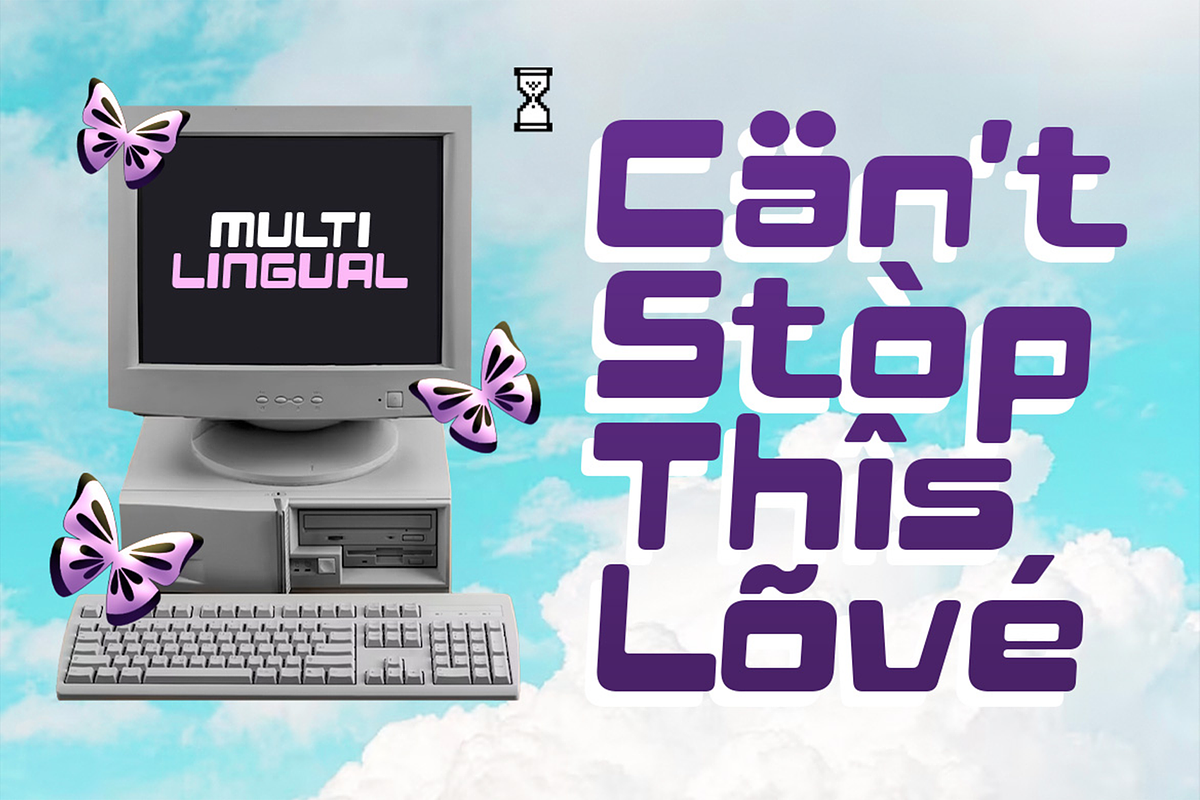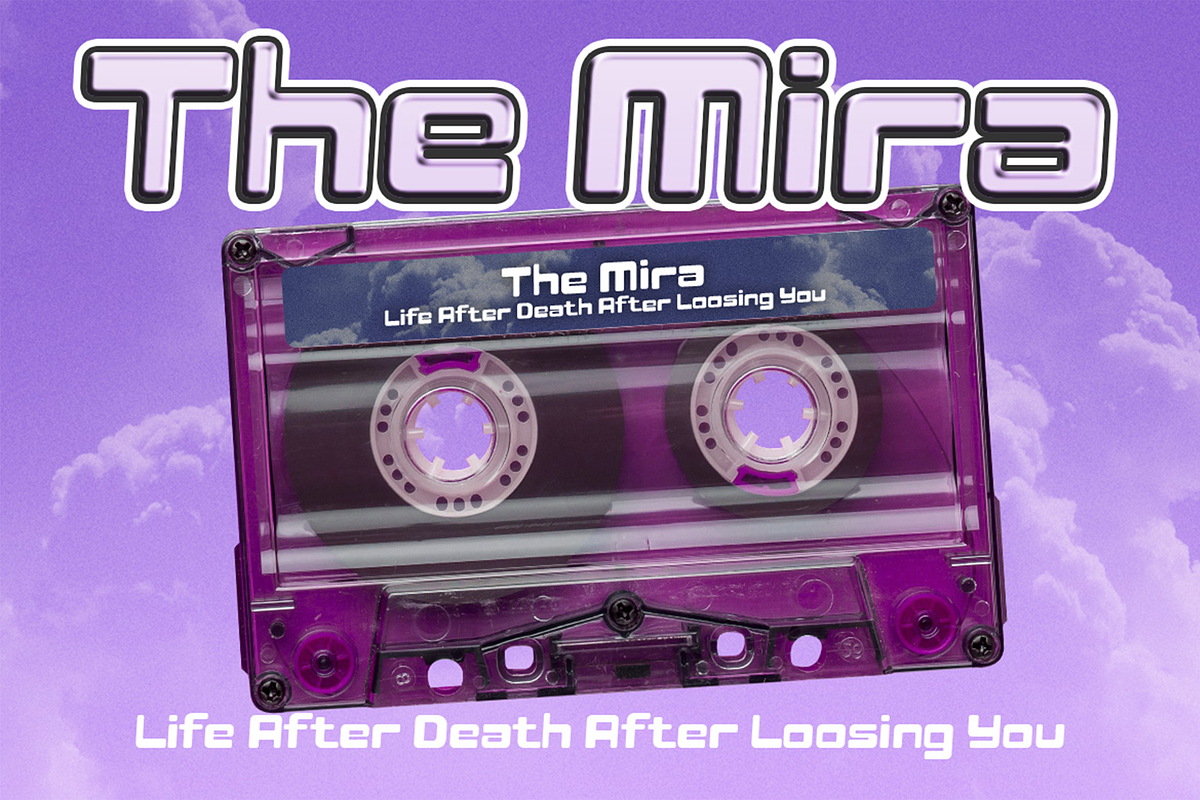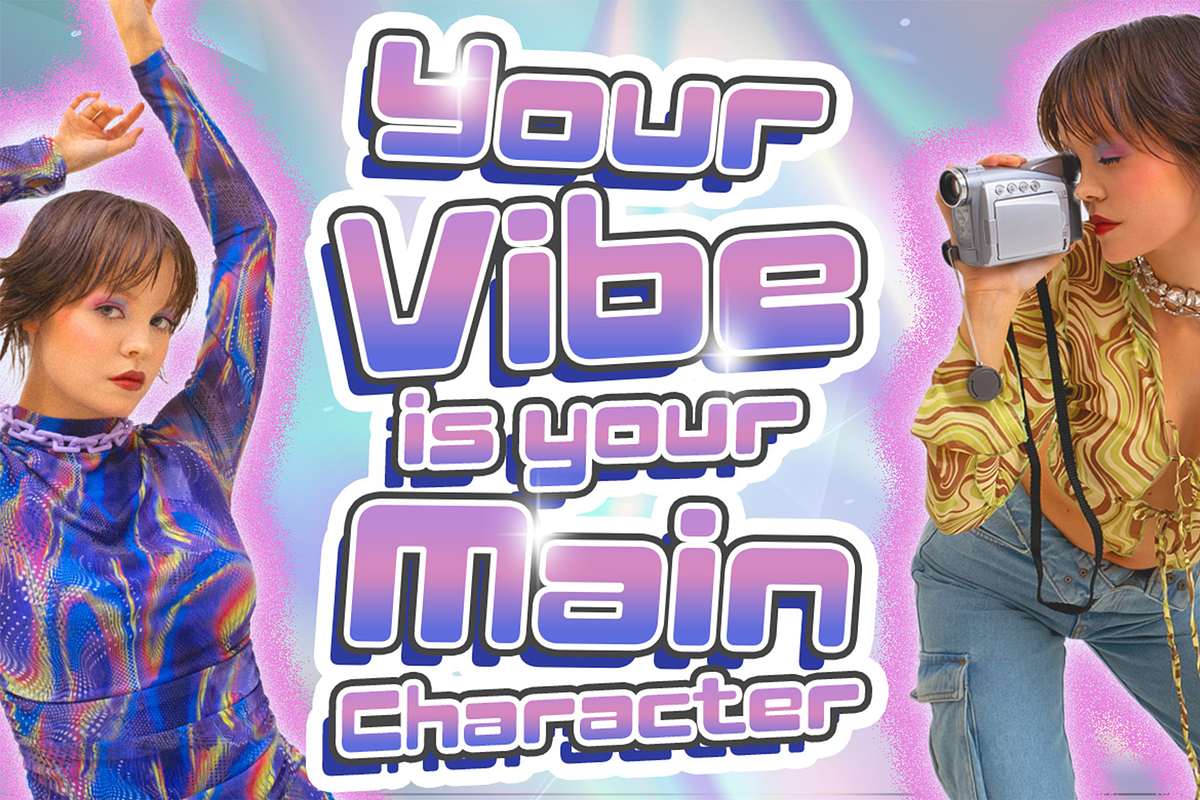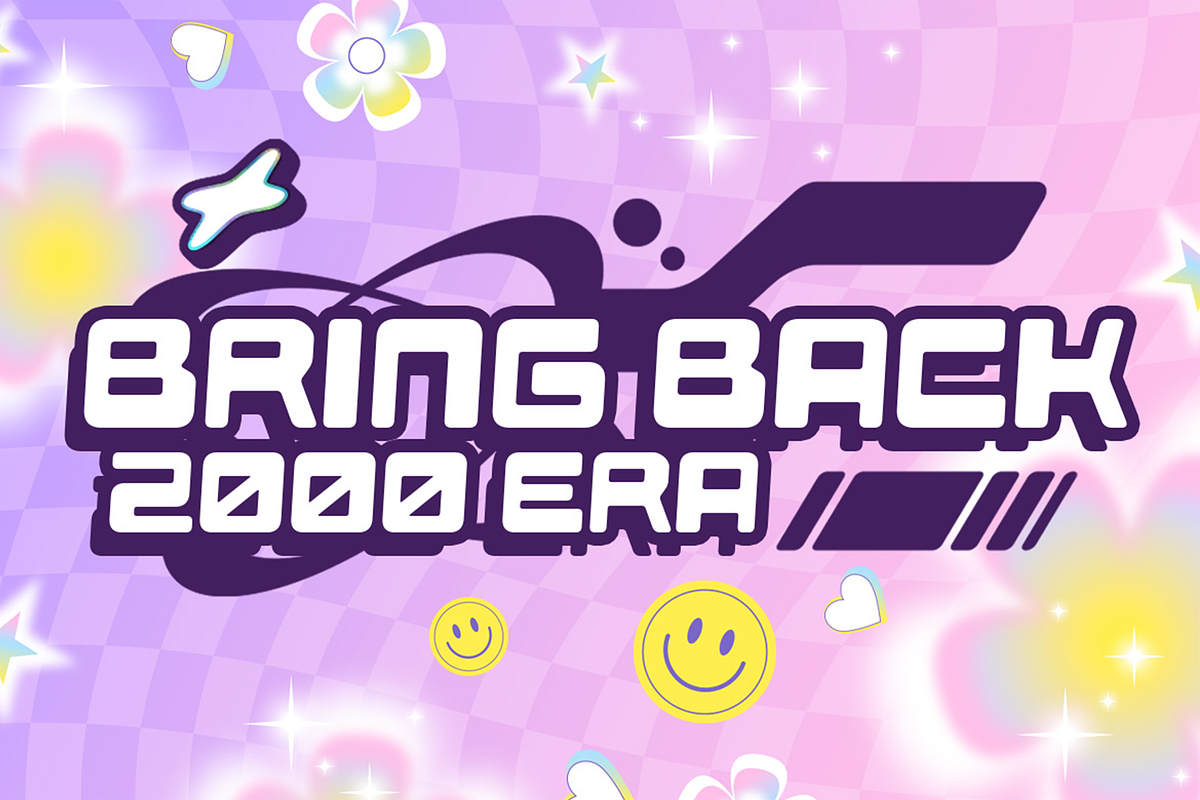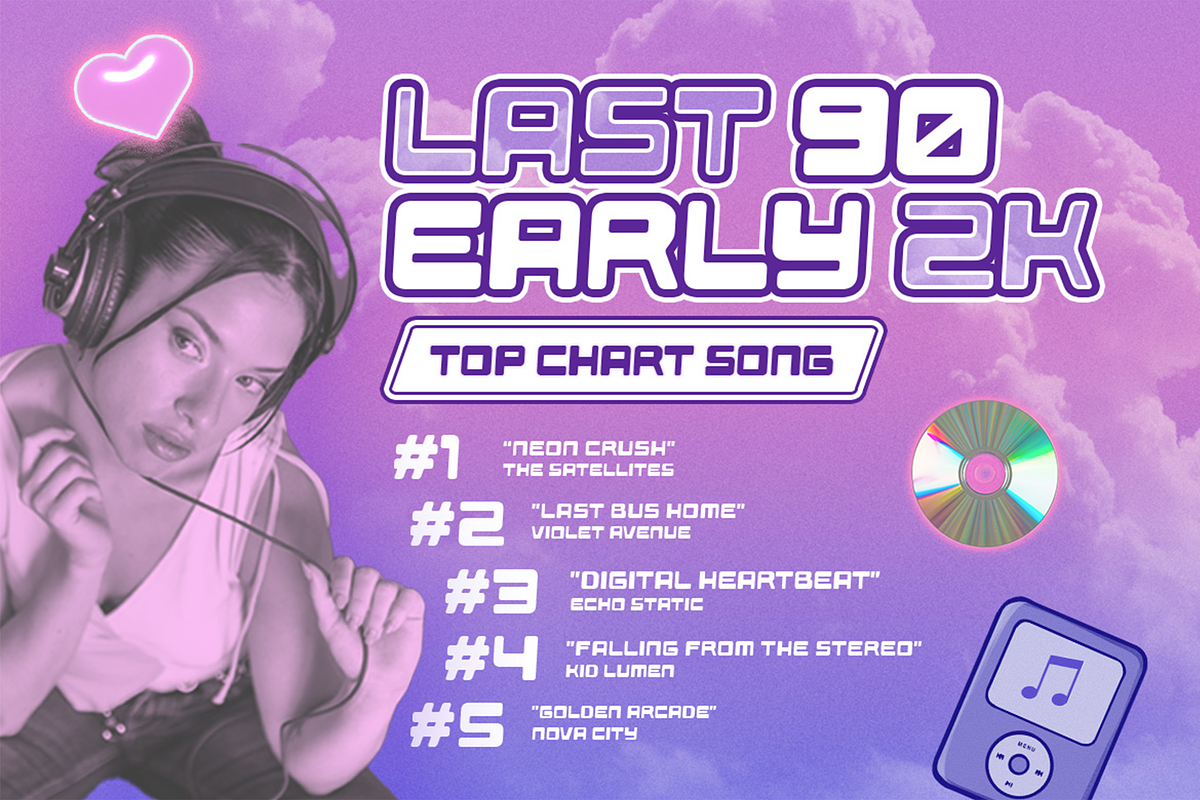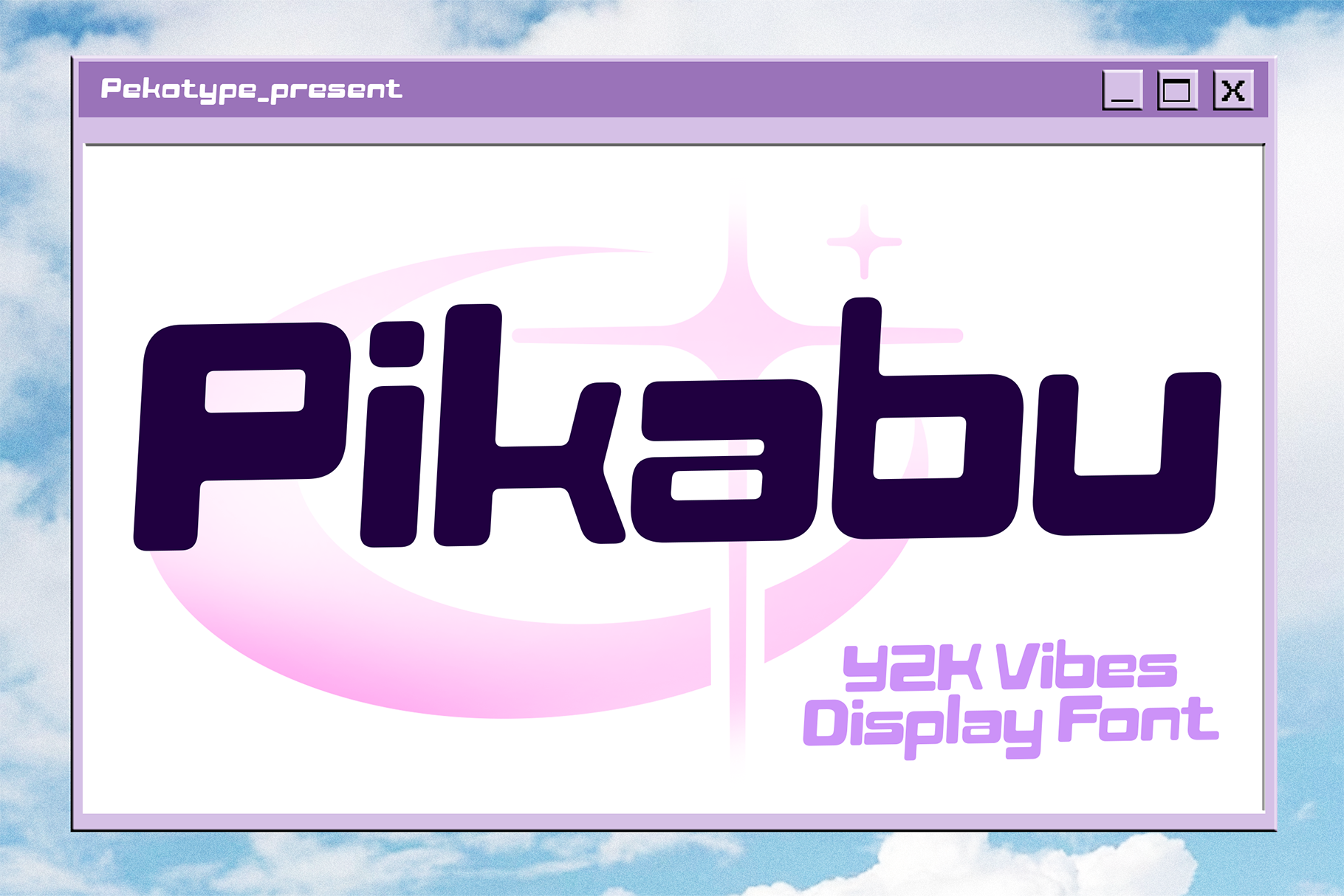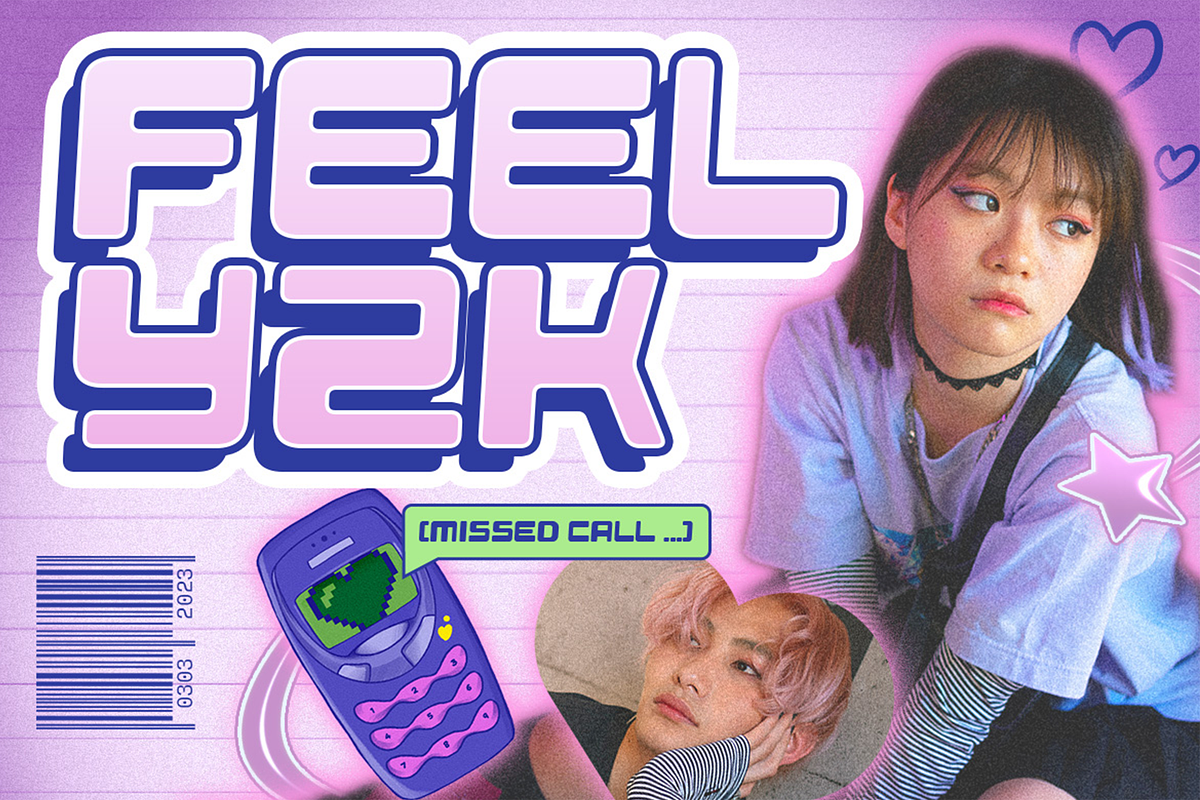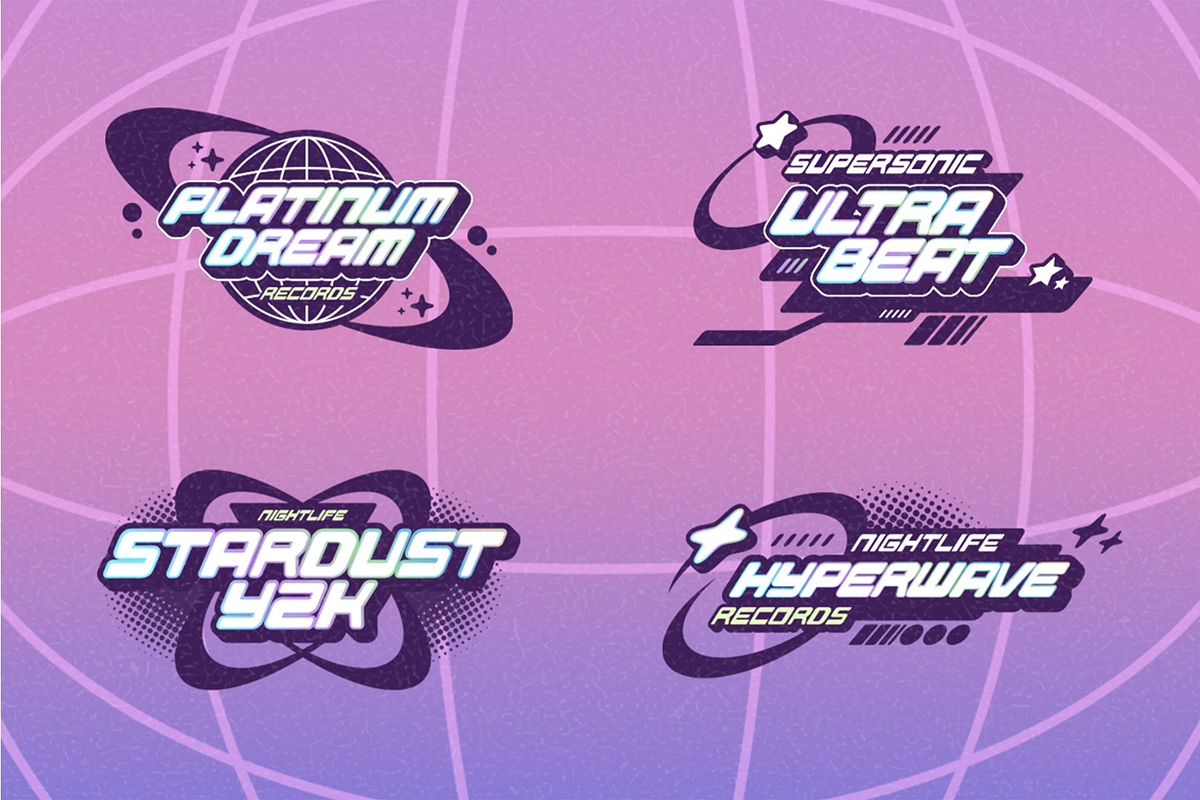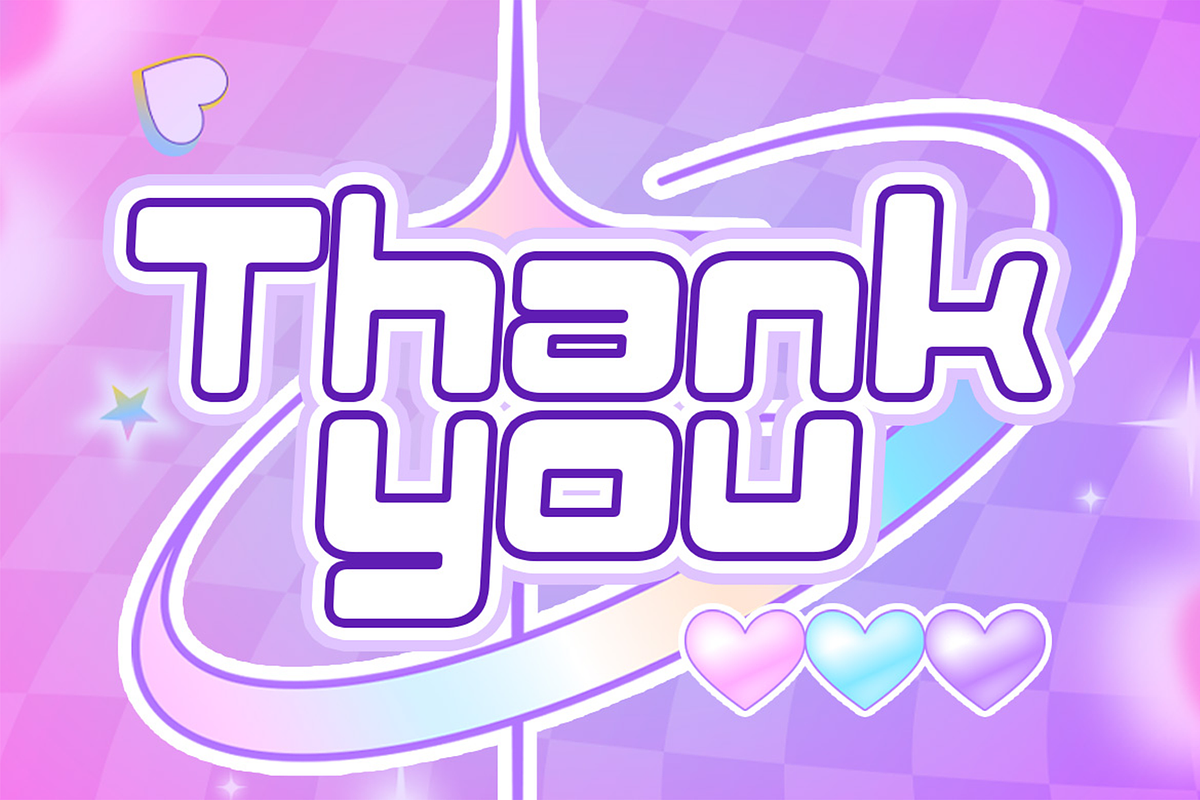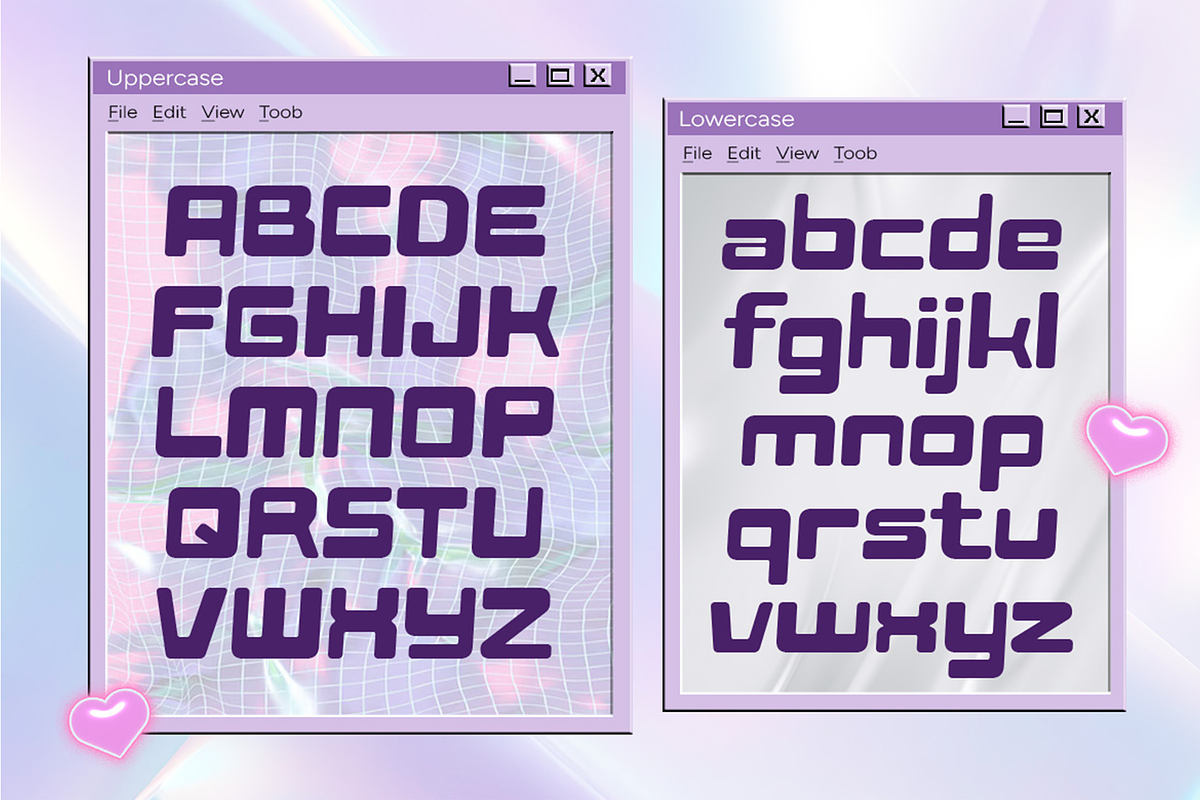
Pikabu - Y2k Vibes Display Font
Pikabu – Y2K Vibes Display Font Full of Retro-Futuristic Energy
Step into the nostalgic digital era with Pikabu, a Y2K-inspired display font that brings back the bold, shiny, and futuristic style of the early 2000s. With its smooth curves and techy edges, Pikabu perfectly blends retro charm and modern aesthetics, making it ideal for bold and youthful designs.
Designed for branding, logos, social media, posters, packaging, album covers, and promotional visuals, Pikabu adds a futuristic sparkle to every project. It comes with uppercase and lowercase characters, numbers, punctuation, and multilingual support, giving you complete creative flexibility.
Whether you’re creating Y2K-style visuals, K-pop inspired campaigns, or fashion branding, Pikabu gives your design a fresh, playful, and energetic feel — a perfect reflection of the digital optimism of the 2000s.